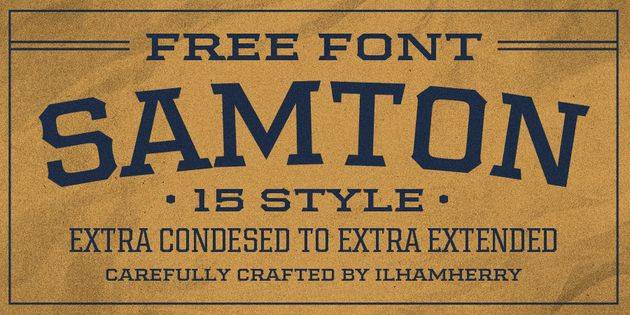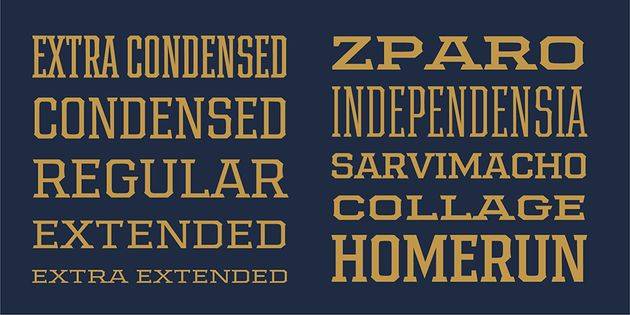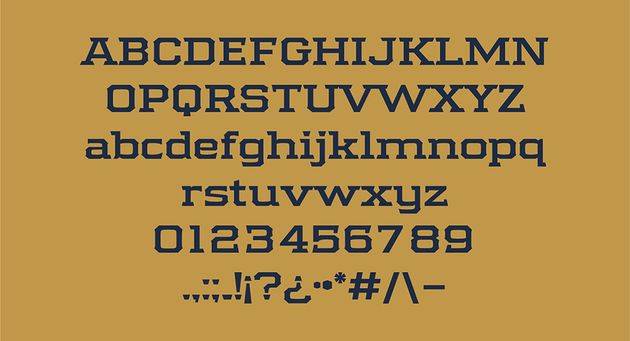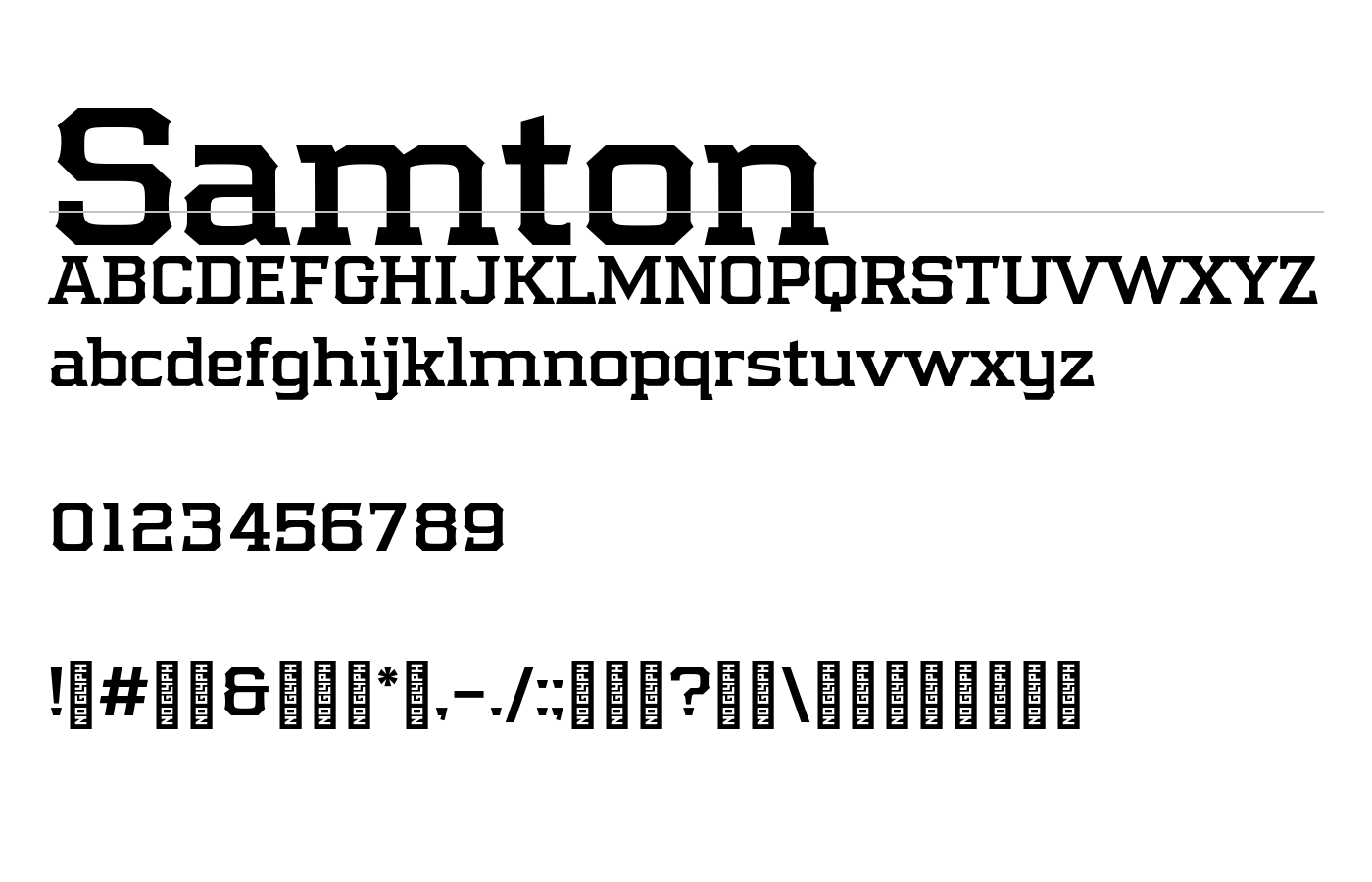
Samton is a bold, slab serif font with a strong, industrial style characterized by its sharp edges and sturdy, block-like serifs. Its medium x-height and consistent stroke weight give it a solid and commanding presence, making it ideal for headlines, branding, and editorial use where a confident and rugged look is desired. This font works well for projects aiming to convey strength, reliability, and a vintage-inspired yet modern feel.
Samton Font Family
About Samton Font Family
| Designer | Ilham Herry |